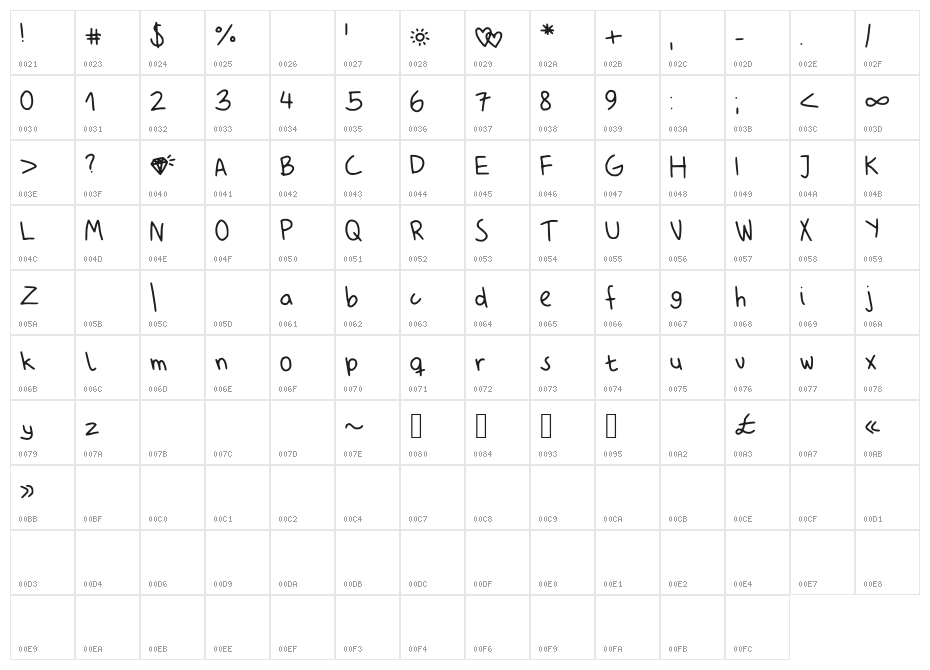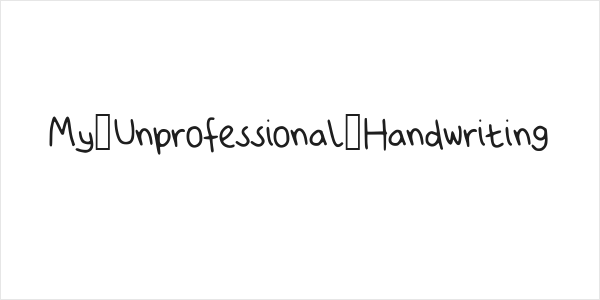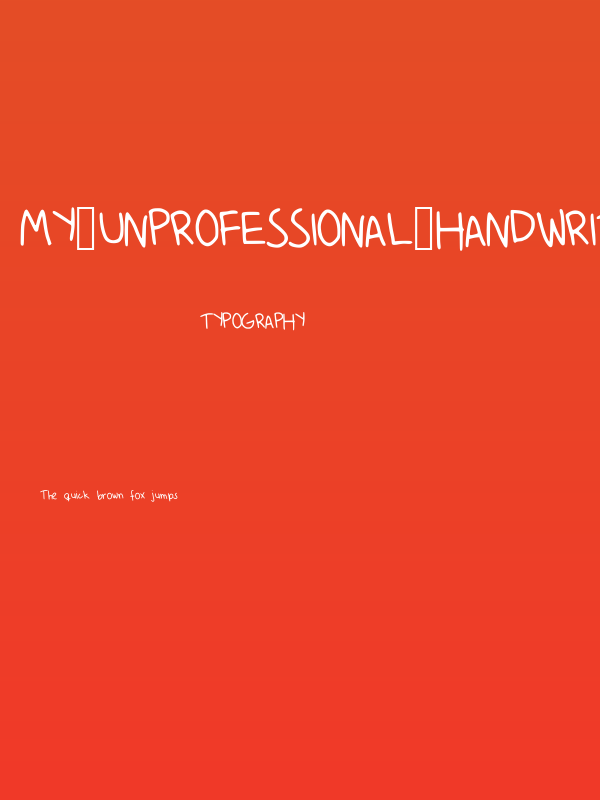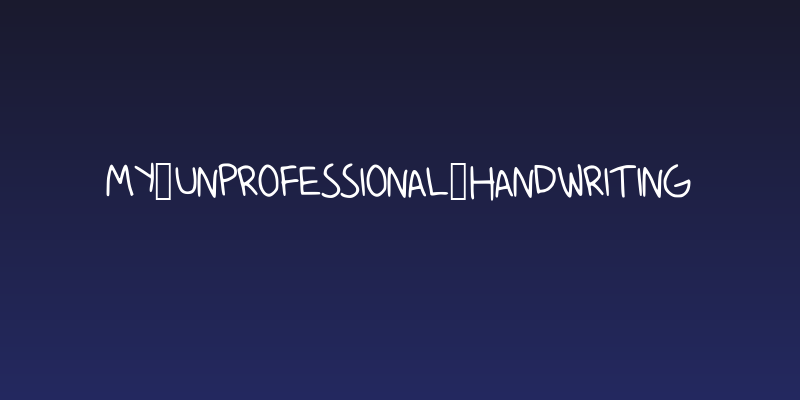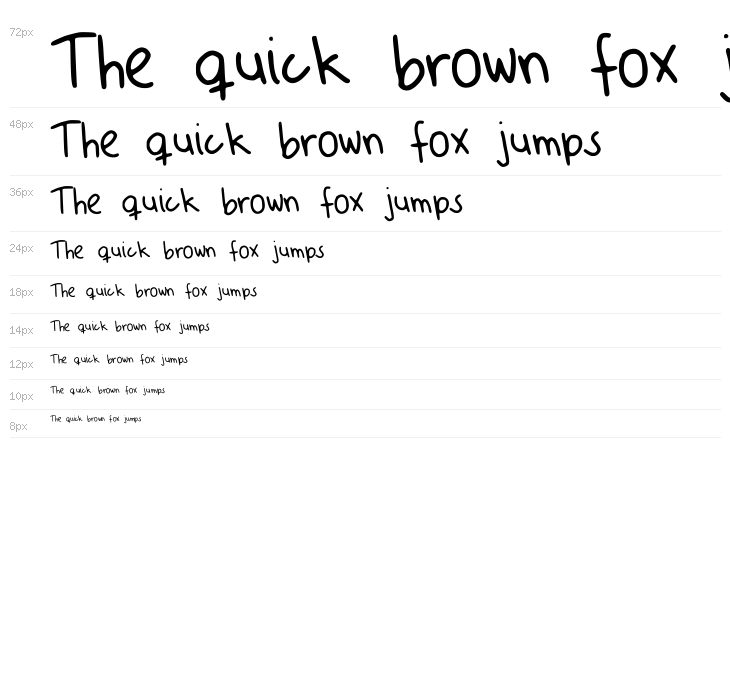
My_Unprofessional_Handwriting Font
My_Unprofessional_Handwriting Description
This font exudes a playful and casual vibe, reminiscent of handwritten notes. The characters are unevenly sized and spaced, adding to its informal charm. The strokes are smooth and rounded, giving it a friendly and approachable appearance. It captures the essence of personal handwriting with its quirky and spontaneous style. The font is versatile for creative projects that require a personal touch, such as greeting cards, children's books, or informal invitations. Its unique character shapes and informal structure make it stand out, while maintaining legibility.
Overall StyleCasual, Playful
Use CaseHeadlines, Informal text, Creative projects
Proposed ProjectsIdeal for greeting cards, children's books, informal invitations, and creative projects.